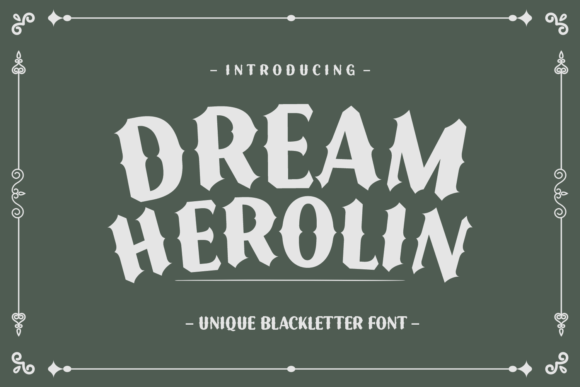
Introducing Dream Herolin Font, the ultimate choice for all Gothic poetry enthusiasts! Crafted with utmost precision and creativity by Creative Fabrica Fonts, this one-of-a-kind blackletter font is here to revolutionize your typography designs. Prepare to be captivated by its unique charm and mesmerizing appeal!
Dream Herolin Font is the perfect way to elevate your creative projects and make them truly stand out. Whether you're designing posters, advertisements, logos, t-shirts, headers, titles, or any other visual masterpiece, this font will effortlessly add a striking touch to your work. Its versatility knows no bounds, allowing you to explore endless possibilities and create exceptional pieces that leave a lasting impression.
Immerse yourself in the enchanting world of Dream Herolin Font, where every stroke and curve tells a captivating story. With its Gothic essence, it evokes a sense of mystery and intrigue, taking your audience on a mesmerizing journey through the depths of your imagination. Let this font be the voice of your words, conveying emotions and feelings like never before.
But what sets Dream Herolin Font apart from the rest? Its impeccable attention to detail and intricate design make it a true masterpiece. Each letter is meticulously crafted, ensuring a seamless blend of elegance and uniqueness. The fine balance between tradition and modernity is what makes this font truly exceptional.